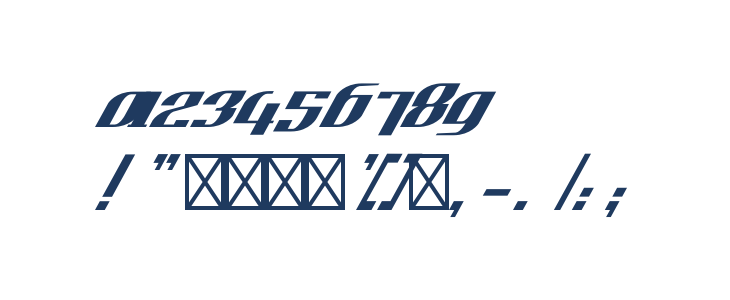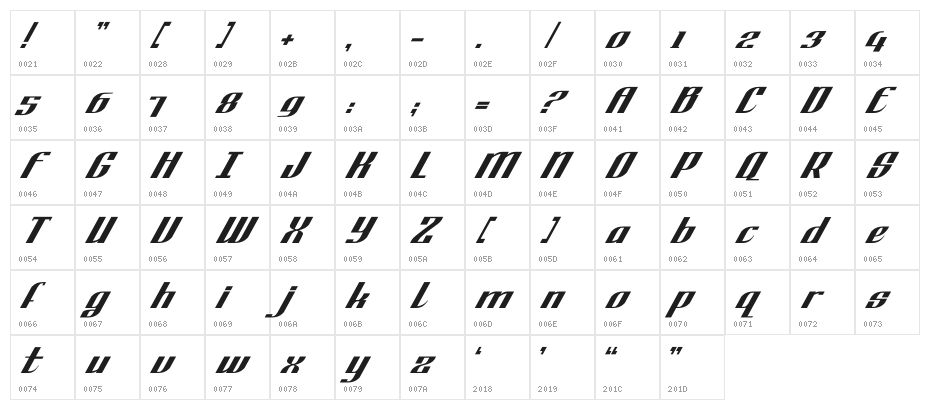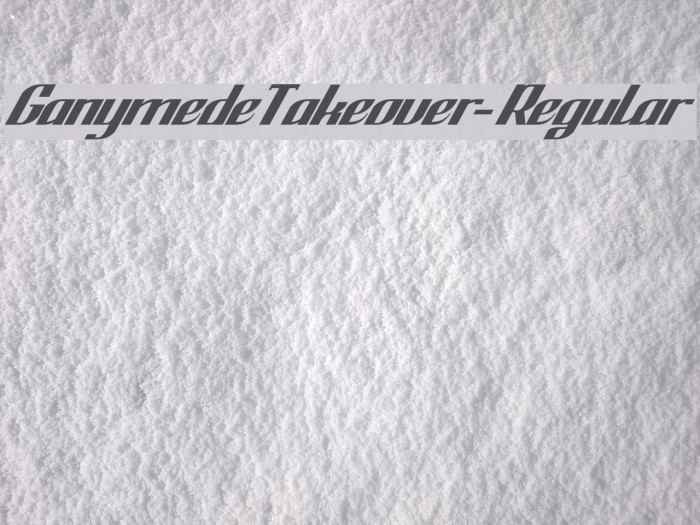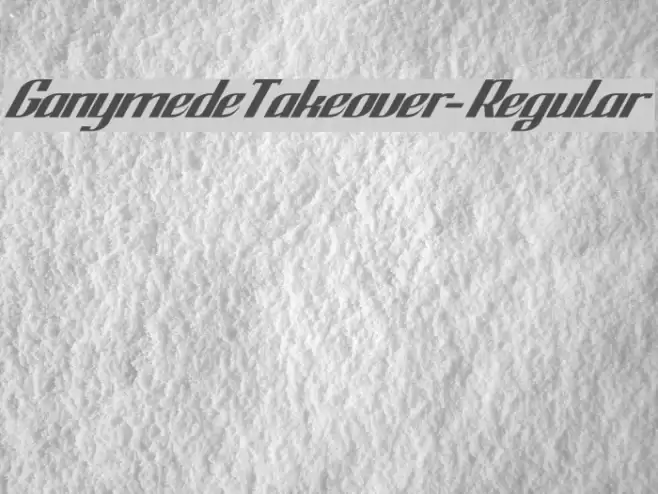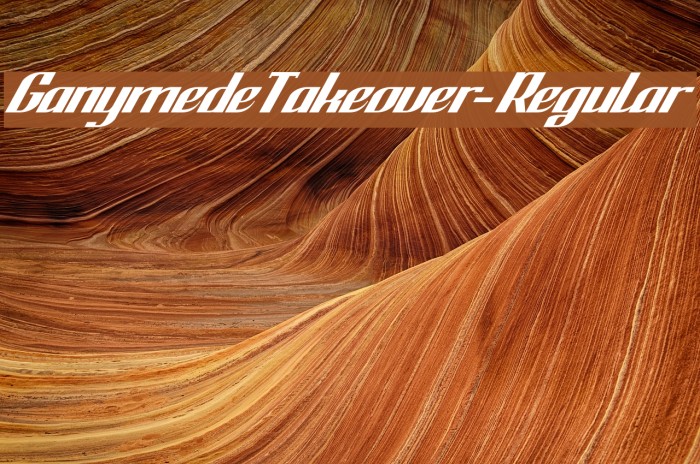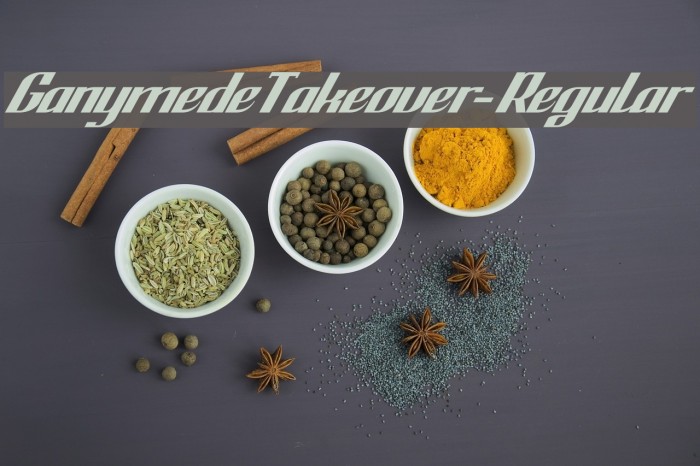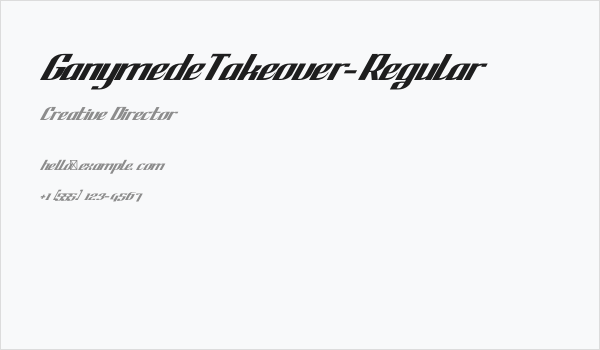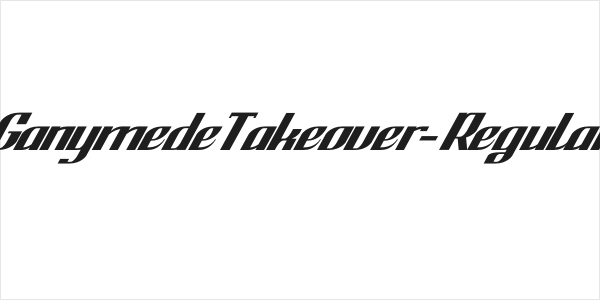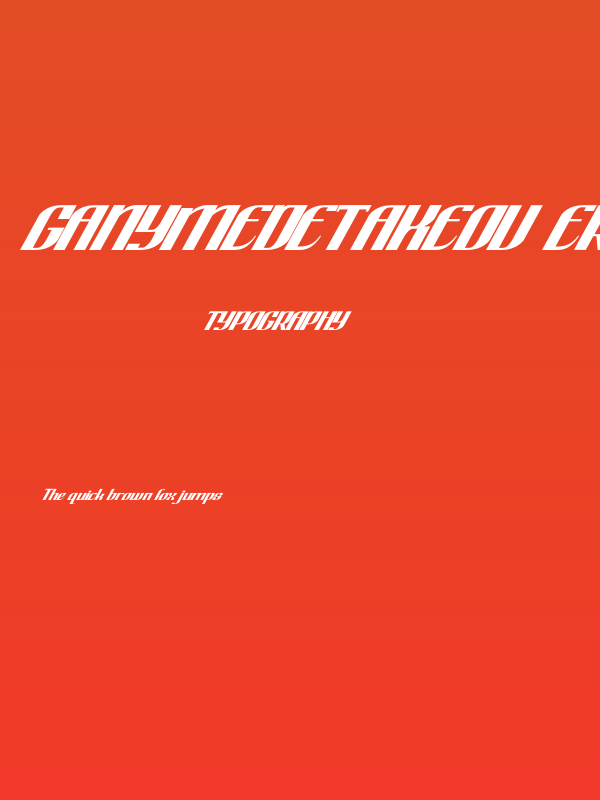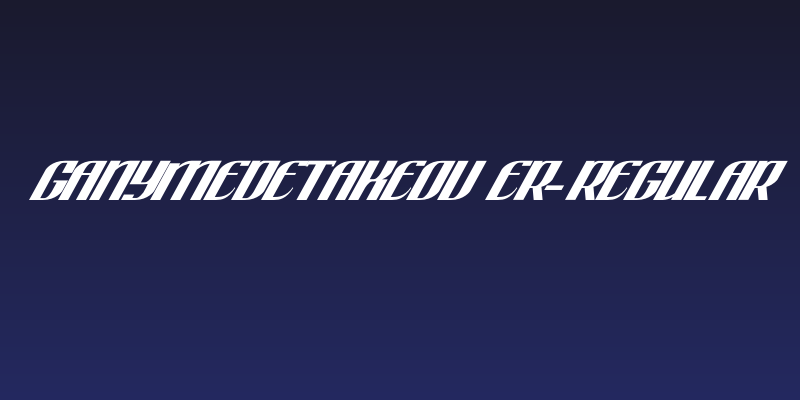
GanymedeTakeover-Regular Font
GanymedeTakeover-Regular Description
This font features a bold, angular design with a futuristic and dynamic appearance. The characters are slanted, giving a sense of motion and speed. The strokes are thick and consistent, providing a strong visual impact. The uppercase and lowercase letters maintain a cohesive style, with sharp edges and geometric forms. Numbers and special characters follow the same design principles, ensuring uniformity across all glyphs. This font is ideal for projects that require a modern and edgy aesthetic.
| Proposed Projects | Ideal for sci-fi themed designs, video game titles, posters, and branding that requires a modern and edgy look. |